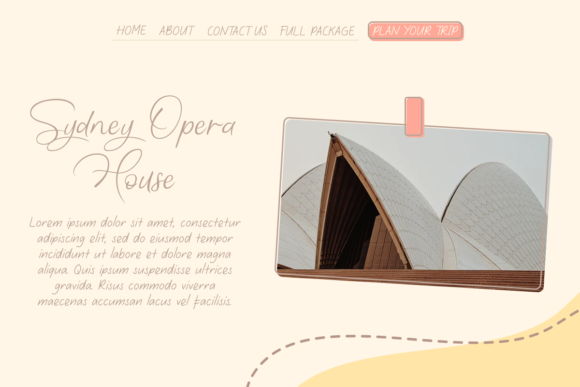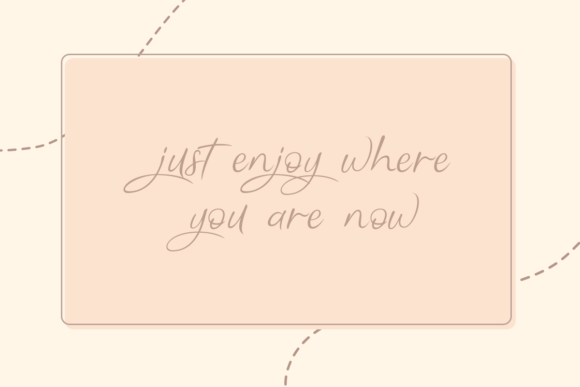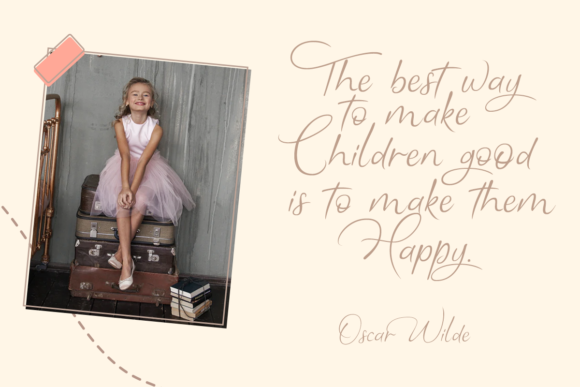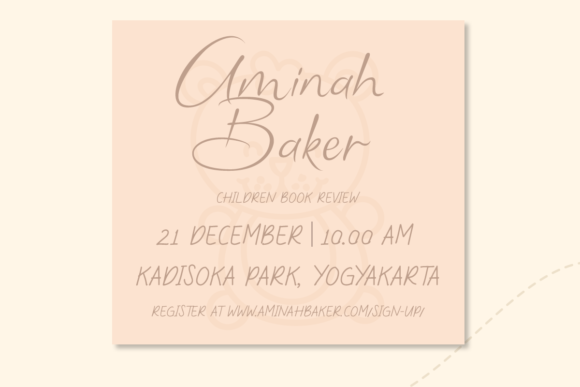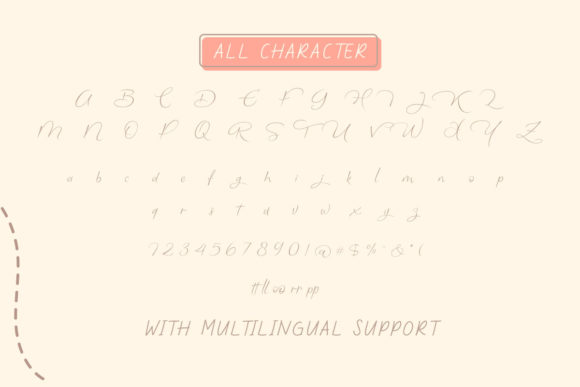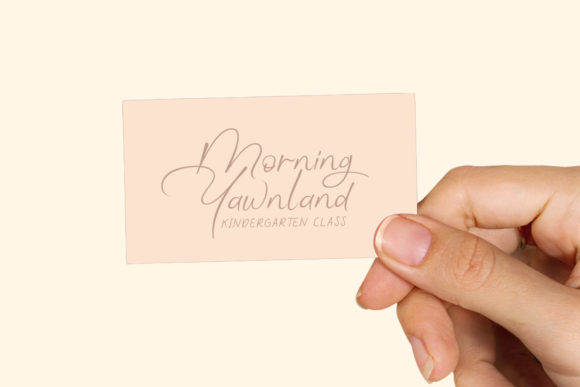
Dopediary Font: The Sweet and Delicate Handwritten Font for Romantic Designs
Are you a designer or crafter looking for a font that can add a romantic and personalized touch to your designs? Look no further than Dopediary Font! This sweet and delicate handwritten font is perfect for creating beautiful wedding invitations, cards, and other designs that require a touch of elegance and sophistication.
What is Dopediary Font?
Dopediary Font is a type of handwritten font that is characterized by its dainty and joyful appearance. It is a carefully crafted font that is designed to mimic the look of handwritten text, with a focus on creating a romantic and whimsical feel. The font is made up of delicate lines and curves that give it a unique and charming appearance.
Features of Dopediary Font
Dopediary Font has several features that make it an ideal choice for designers and crafters. Some of its key features include:
- Handwritten appearance: Dopediary Font has a beautiful handwritten appearance that gives it a personal and unique touch.
- Dainty and delicate: The font is characterized by its dainty and delicate lines, which make it perfect for creating romantic and whimsical designs.
- Joyful and playful: Despite its delicate appearance, Dopediary Font has a joyful and playful feel that makes it perfect for creating designs that require a touch of whimsy.
- Easy to read: Despite its handwritten appearance, Dopediary Font is easy to read and understand, making it perfect for use in a variety of designs.
Uses of Dopediary Font
Dopediary Font is a versatile font that can be used in a variety of designs. Some of the most popular uses of the font include:
- Wedding invitations: Dopediary Font is perfect for creating beautiful and romantic wedding invitations that set the tone for a special day.
- Cards and stationery: The font is also great for creating cards and stationery that require a personal and unique touch.
- Branding and packaging: Dopediary Font can be used in branding and packaging designs to add a touch of elegance and sophistication.
- Digital designs: The font can also be used in digital designs, such as social media graphics and blog posts, to add a touch of personality and whimsy.
Why Choose Dopediary Font?
There are many reasons why designers and crafters choose Dopediary Font for their designs. Some of the top reasons include:
- Unique and charming appearance: Dopediary Font has a unique and charming appearance that sets it apart from other fonts.
- Versatile: Dopediary Font is a versatile font that can be used in a variety of designs, from wedding invitations to digital designs.
- High-quality: The font is high-quality and is designed to look beautiful in a variety of sizes and resolutions.
Dopediary Font is a beautiful and versatile font that is perfect for designers and crafters who want to add a romantic and personalized touch to their designs. With its dainty and joyful appearance, easy-to-read design, and versatility, Dopediary Font is an ideal choice for a variety of designs, from wedding invitations to digital designs. Whether you’re a professional designer or a crafter, Dopediary Font is a great addition to your font collection.